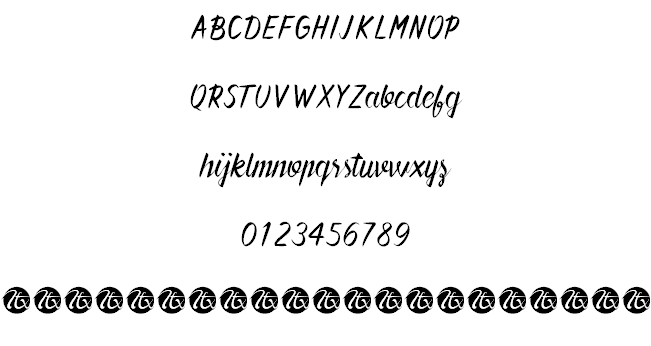
Free Forever Brush Script Font
Featuring a free forever brush script font. Font Space has created this amazing and beautiful free font. This is absolutely cool font so you can easily make world-class designs.